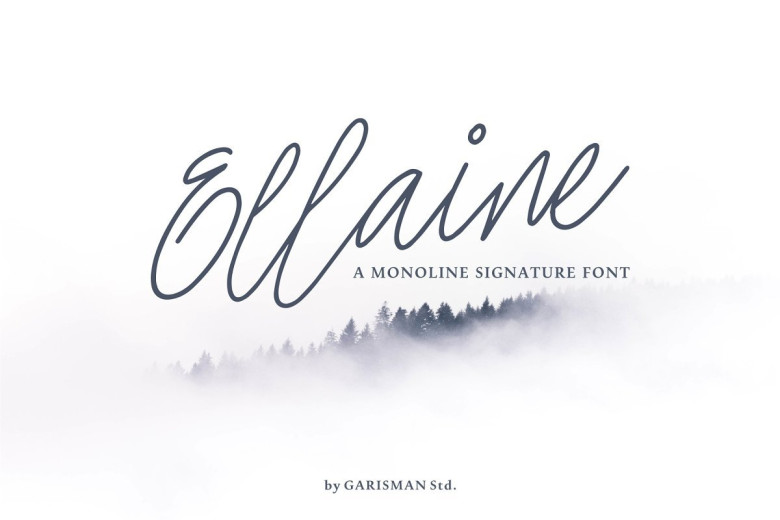
Ellaine Signature Font
Hi world!! A new monoline signature font. Introducing Ellaine Font – a new signature monoline with elegant lines that makes this font perfect for imaging your personal brand and every great project, such as: logos, invitations, stationery, wedding designs, social media posts, advertisements, product packaging, product design, labels, photography, watermarks, special events, and more!